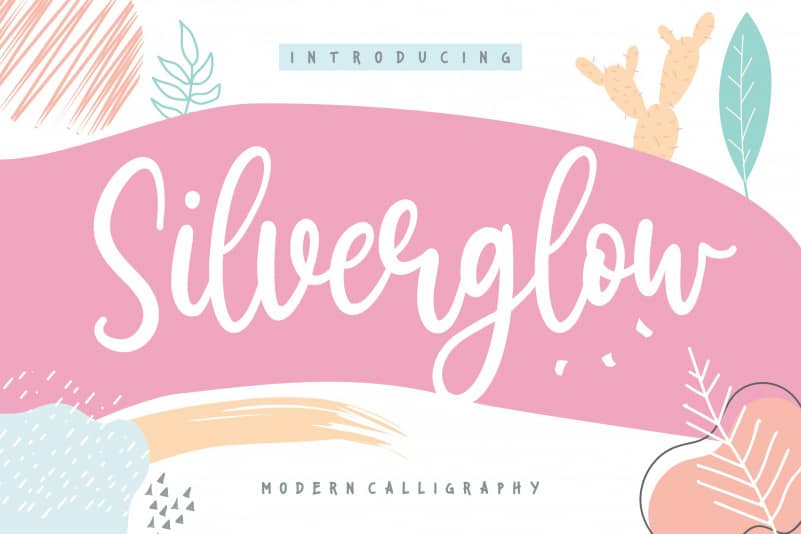
Silverglow Calligraphy Font
Proudly Present, Silverglow Playful Modern Calligraphy Font.
Silverglow is a jolly and sweet handwritten font. It is perfect for product packaging, branding projects, magazines, social media posts, wedding invitations and much more!